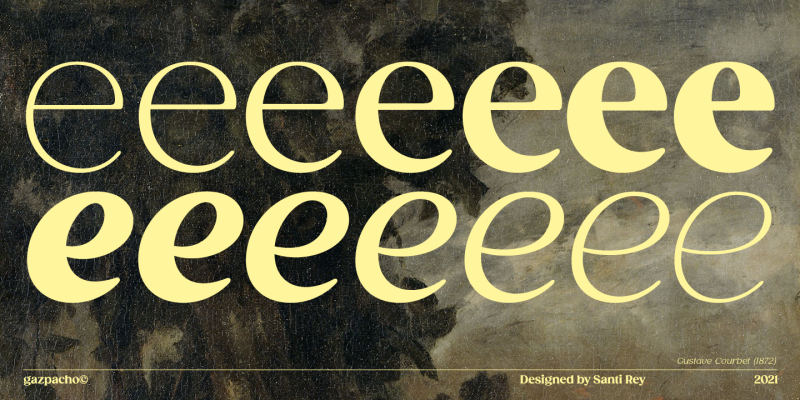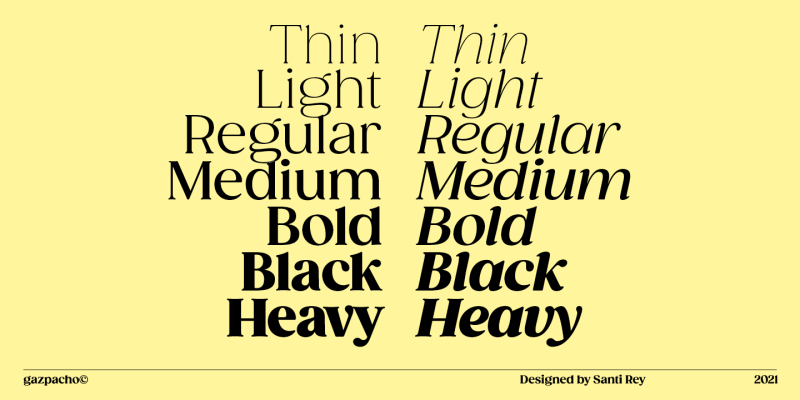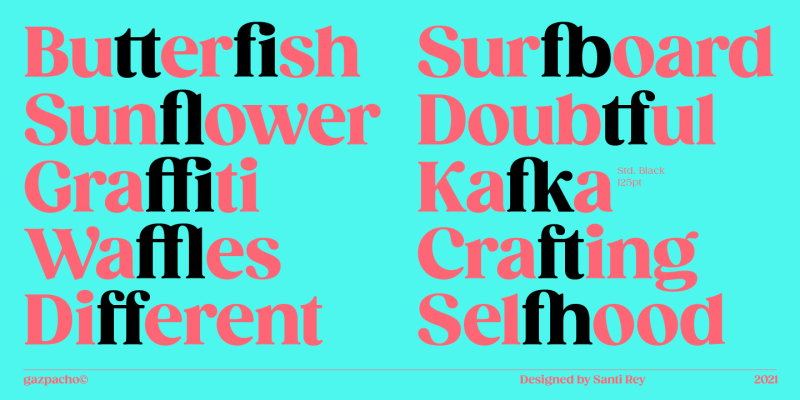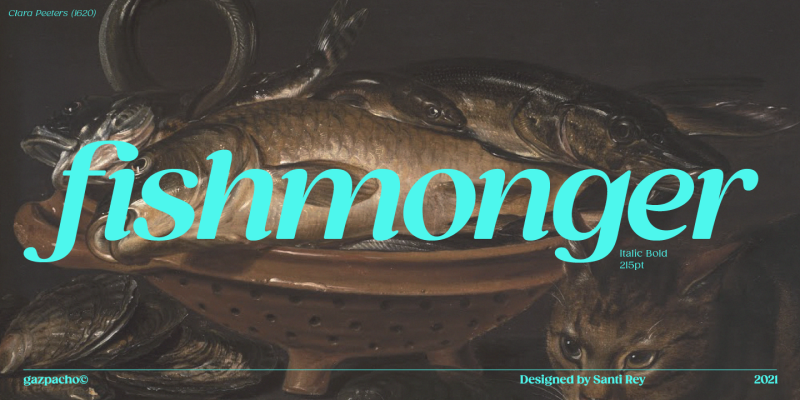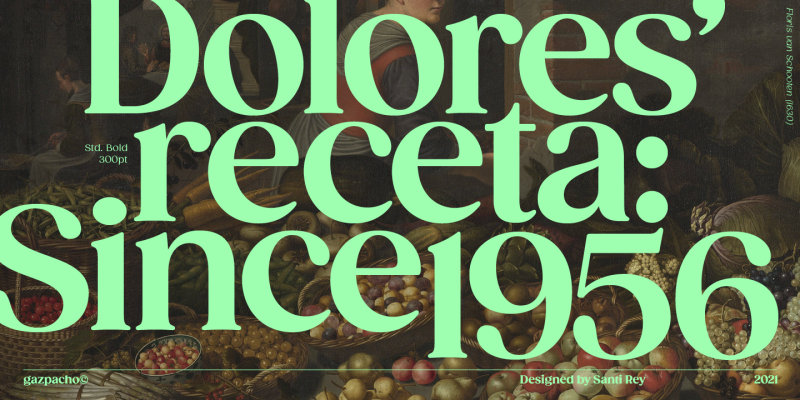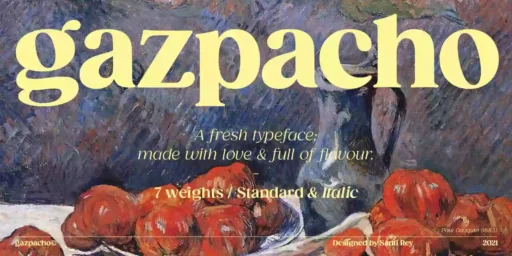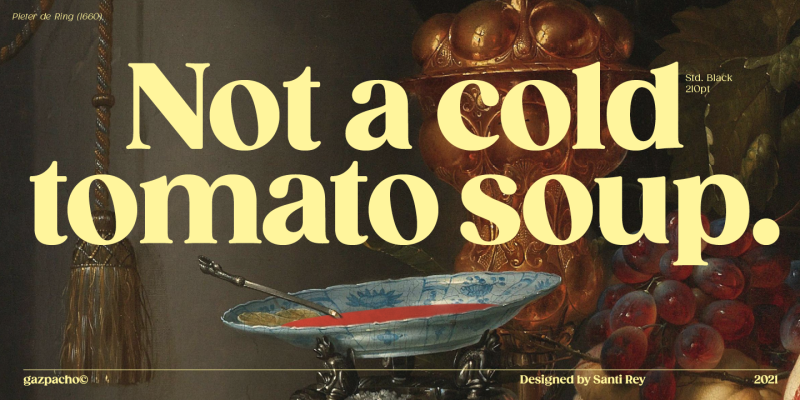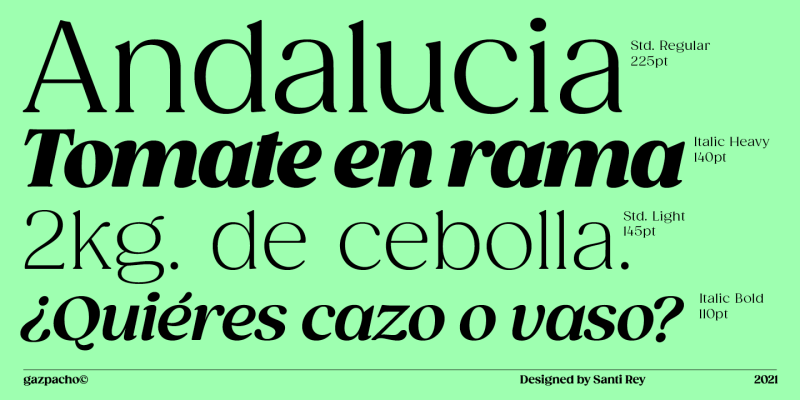
Gazpacho Font
Gazpacho Font, which reflects the striking lettering of the 70s and 80s, pays tribute to the period of fantastic and groundbreaking editorial designs. Let’s look at how it inherits the character of such typography and still performs modernly.
During the 1980s and 1990s, newspapers and magazines most likely used serif typefaces to accompany their contents. A well-deducible, all-caps, clean sans-serif typeface improves the sense of reliability and is known as a time of mass sensationalism.
Gazpacho letterforms are skillfully designed to carry classic and straightforward editorial typography. Its high-quality serifs and generous X-height make it a good choice for titles and large, imposing headlines. The font does not lose its legibility even in titles with very tight leading, which could cause all the words to become a focus for readers.
Of course, a mere art display is only one way to use Gazpacho’s multiple advantages. Its high contrast and simple, memorable forms make it highly recognizable even in small, long texts. We design content for magazines, whether body copy or website paragraphs and ensure that the gazpacho is clear and readable without compromising style.
Gazpacho Font offers designers a comprehensive toolkit with seven weights and two styles. It gives an extraordinary choice in terms of design. You may create an ornament, maybe even have an extravagant taste, or add a tender note to your make-up.
With its relevant qualities and sleek body text, Gazpacho font may be suitable for various design purposes. Its generosity of spirit, which connotes power and creates a sense of home, helps it to feature as the best layout choice for editorial, branding, and digital designs, among other things.
Where Gazpacho Font works best
Gazpacho Font gives long-form text a classic, trustworthy rhythm — ideal for magazine spreads, annual reports and book interiors.
Pair Gazpacho Font with generous letter-spacing for wordmarks in fashion, hospitality, wine and jewellery branding.
Use Gazpacho Font for slide titles in Keynote, PowerPoint or Google Slides to add authority without looking dated.
What is Gazpacho Font good for?